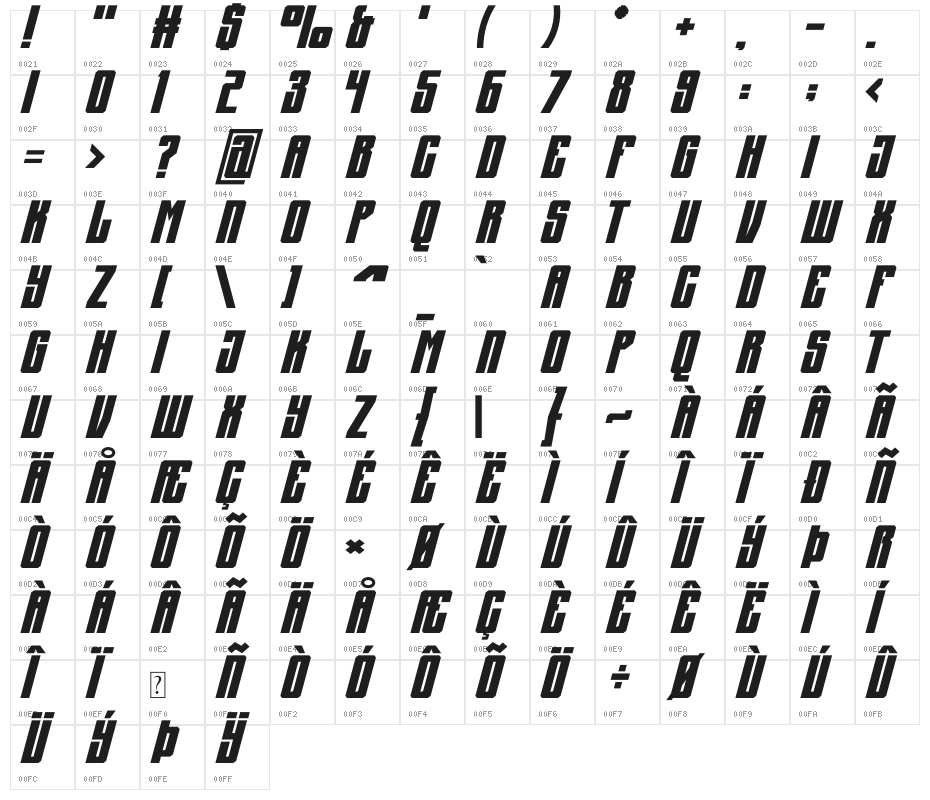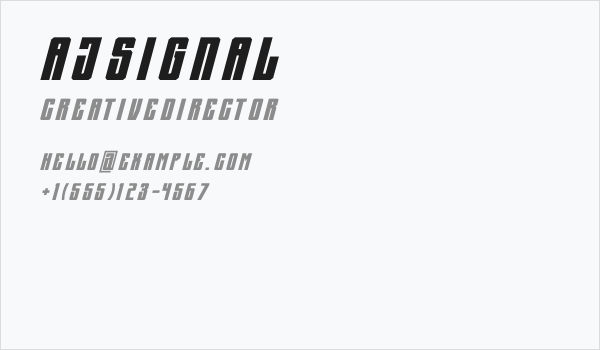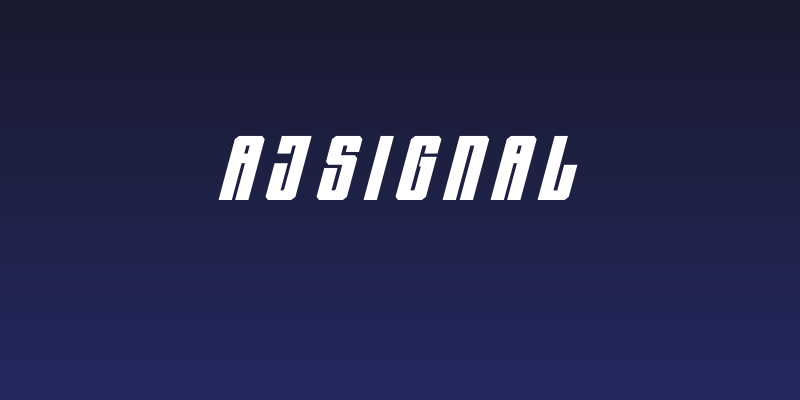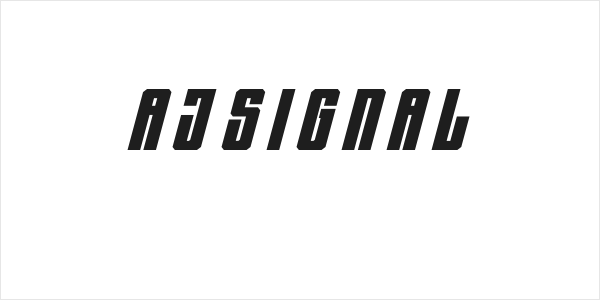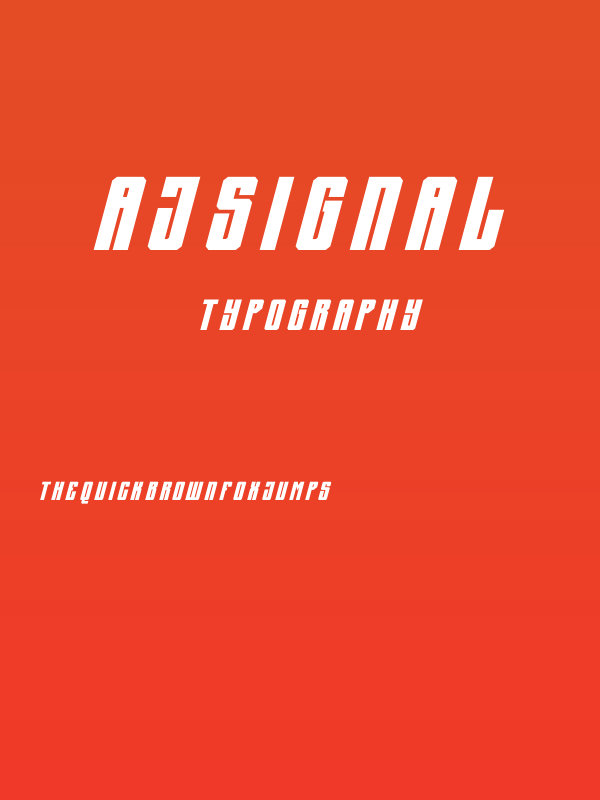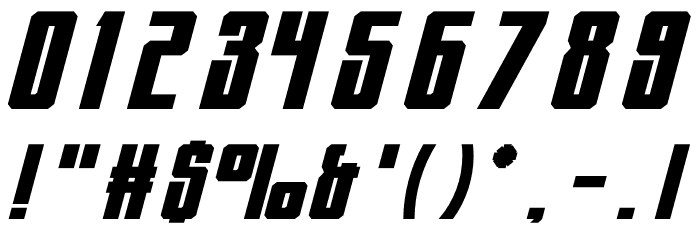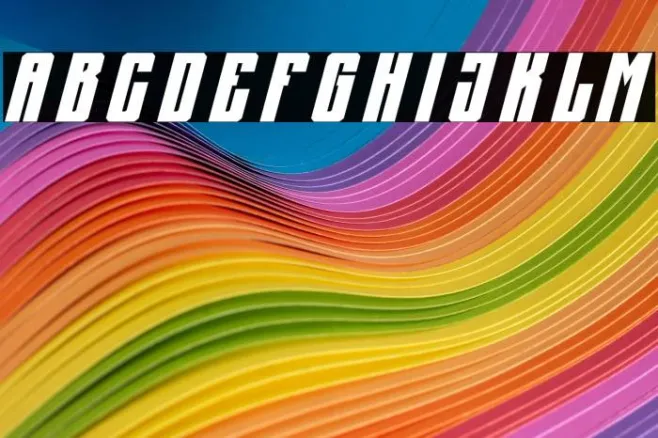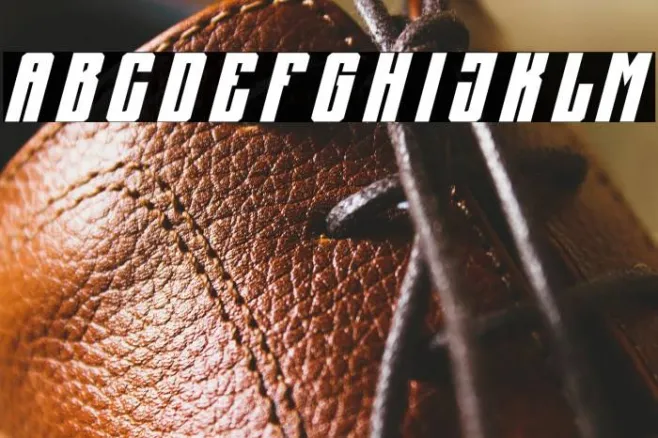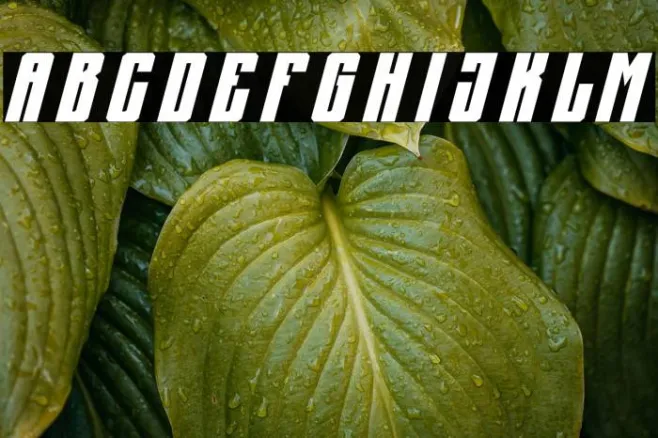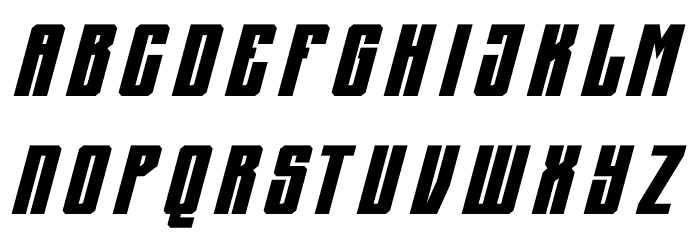
AJ Signal Font
AJ Signal Description
This font exhibits a bold and dynamic style with a strong presence. The characters are sharply angled, giving them a sense of motion and energy. The uppercase and lowercase letters maintain a consistent slant, enhancing the font's cohesive look. The numbers are equally bold, ensuring they stand out in any design. Special characters are designed with the same attention to detail, making them suitable for a variety of uses. The overall appearance is modern and impactful, ideal for projects that require a strong visual statement.
| Proposed Projects | Ideal for sports branding, dynamic posters, and attention-grabbing headlines. |